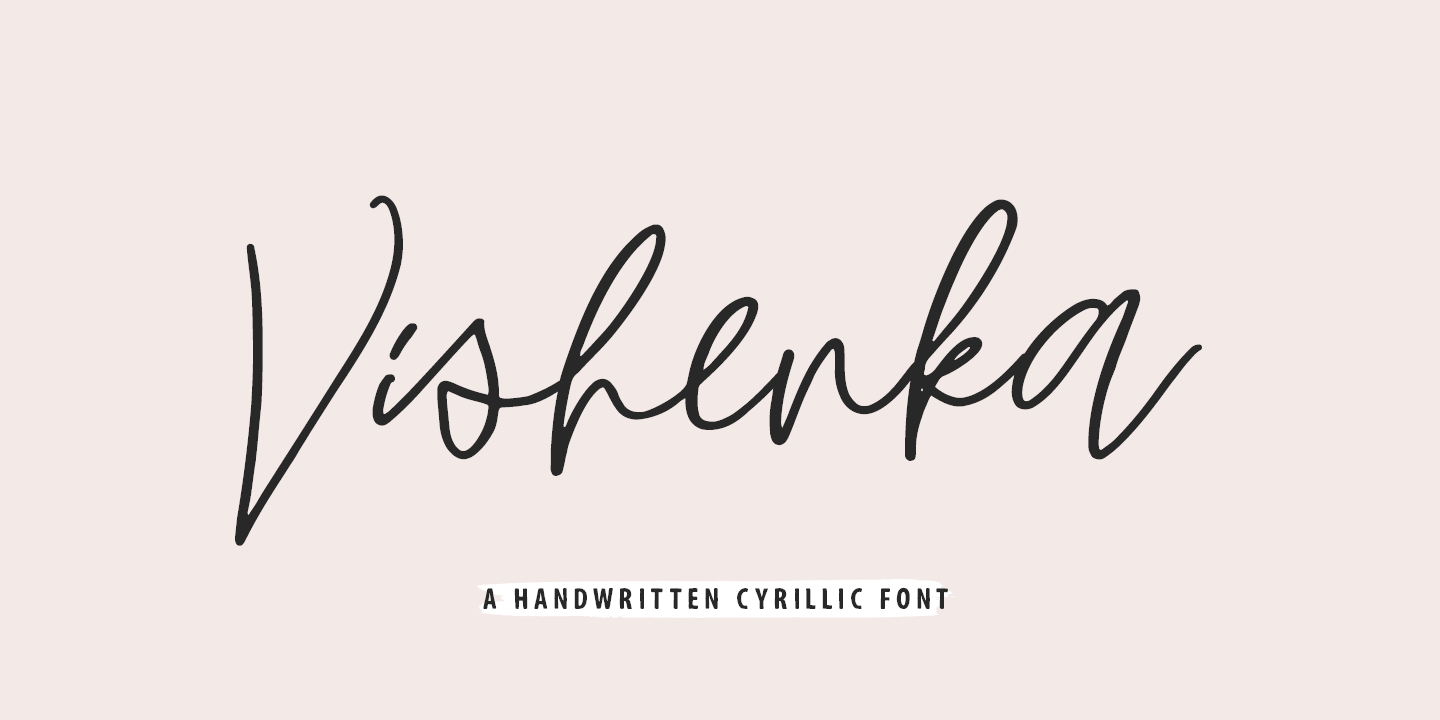
Vishenka Font is perfect for cherry-themed branding, fruit packaging designs, sweet dessert materials, Russian cultural graphics, orchard signage, berry festival promotions, traditional food campaigns, and charming cherry typography.
What makes Vishenka Font exciting is its sweet cherry character that embodies fruit elegance and cultural charm through delicate letterforms and berry appeal. This delightful typeface features cherry construction, fruit details, and sweet personality that captures the essence of cherry sweetness and traditional fruit culture, making it ideal for projects seeking to communicate natural sweetness, fruit authenticity, and cultural charm with genuine cherry appeal and fruity sophistication.
The Vishenka Font family includes Light, Regular, and Bold weights, each maintaining the characteristic cherry sweetness and fruit appeal that define this distinctive typeface's natural personality and cultural sophistication.